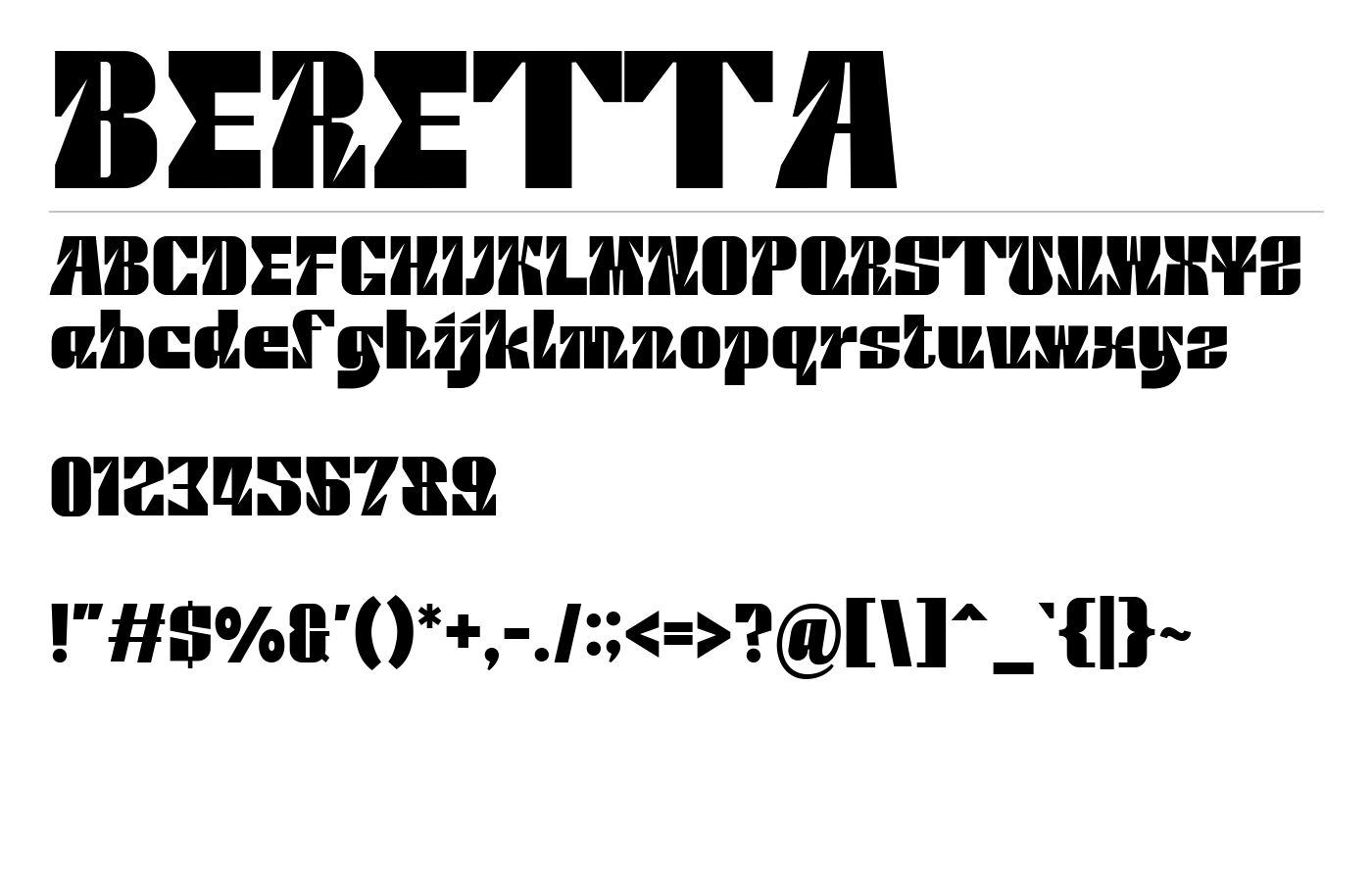
Beretta is a bold, condensed slab serif font with a striking, geometric style characterized by sharp angles and high contrast between thick and thin strokes. Its distinctive letterforms, including blocky serifs and unique terminals, create a powerful, vintage-inspired look that feels both dramatic and edgy. Ideal for headlines, logos, and display use, Beretta commands attention with its strong personality and works well for branding that aims to convey confidence and impact.
BERETTA Font
About BERETTA Font